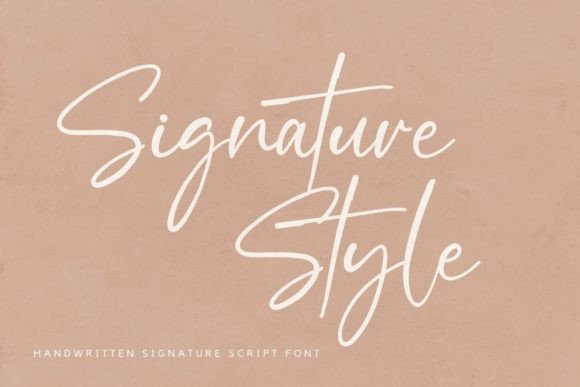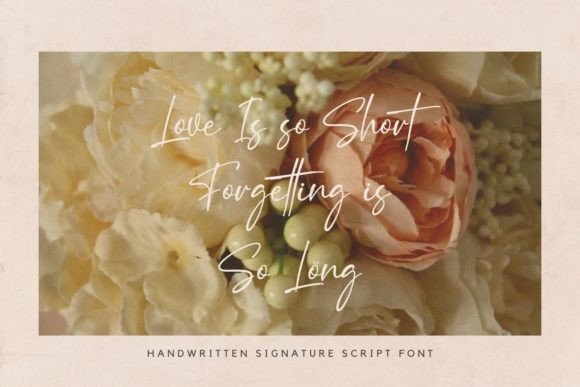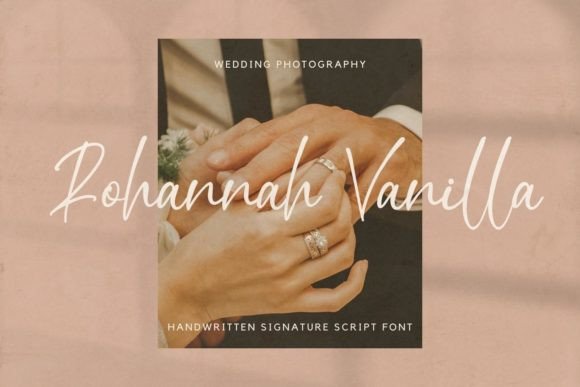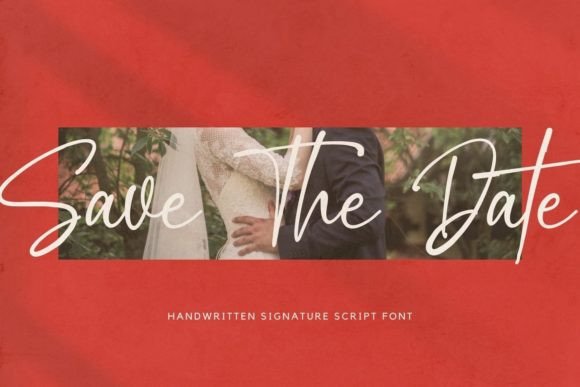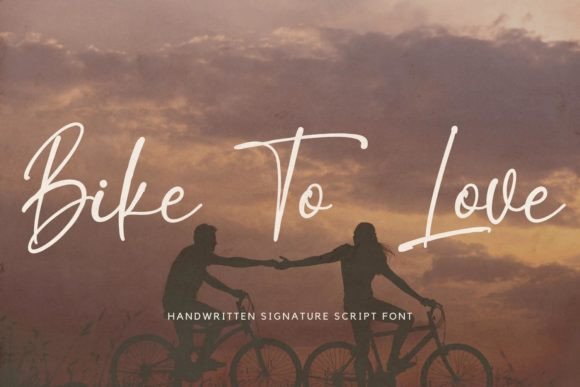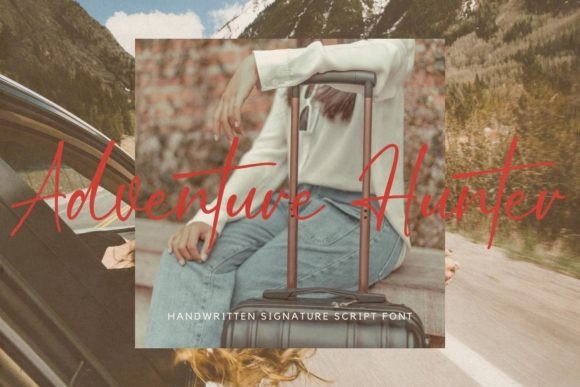
Introducing Heater Bellamore: Elevate Your Designs with Elegant Script Signature Handwriting Font
Are you looking for a font that can add a touch of elegance and sophistication to your designs? Look no further than Heater Bellamore, a stunning script signature handwriting font that is sure to elevate your projects to the next level. With its charming and versatile features, Heater Bellamore is perfect for creating personalized signatures, logos, and more.
The Beauty of Handwriting Styles
Handwriting styles have always been a popular choice for designers and crafters, as they add a personal touch to any project. Heater Bellamore is no exception, offering a beautiful and unique script signature handwriting style that is sure to make a statement. With its flowing lines and elegant curves, this font is perfect for creating designs that are both sophisticated and eye-catching.
Features of Heater Bellamore
Heater Bellamore is more than just a beautiful font – it’s also incredibly versatile. Here are just some of the features that make it a must-have for designers and crafters:
- Uppercase and Lowercase Letters: Heater Bellamore includes both uppercase and lowercase letters, giving you the flexibility to create designs that are both bold and delicate.
- Numbers and Punctuations: In addition to letters, Heater Bellamore also includes numbers and punctuations, making it easy to create complete designs that include text and numerical information.
- Multilingual Support: Heater Bellamore supports multiple languages, making it a great choice for designers and crafters who work with clients from around the world.
- Ligatures: Ligatures are special characters that combine two or more letters into a single glyph. Heater Bellamore includes ligatures, which can add an extra touch of elegance to your designs.
- PUA Encoding: PUA (Private Use Area) encoding allows you to access special characters and glyphs that are not available in standard fonts. Heater Bellamore includes PUA encoding, giving you even more flexibility and creative options.
Endless Possibilities for Your Designs
With Heater Bellamore, the possibilities for your designs are endless. Here are just a few ideas to get you started:
- Personalized Signatures: Create beautiful, one-of-a-kind signatures for your clients or personal use.
- Logos and Branding: Use Heater Bellamore to create elegant logos and branding materials that will set your business apart.
- Stationery and Invitations: Add a touch of elegance to your stationery and invitations with Heater Bellamore.
- Digital Art and Graphics: Use Heater Bellamore to add a personal touch to your digital art and graphics.
Why Choose Heater Bellamore?
There are many script signature handwriting fonts available, but Heater Bellamore stands out from the crowd. Here are just a few reasons why:
- Unique and Elegant Design: Heater Bellamore has a unique and elegant design that is sure to make a statement.
- Versatile Features: With its versatile features, including uppercase and lowercase letters, numbers, punctuations, multilingual support, ligatures, and PUA encoding, Heater Bellamore offers endless possibilities for your designs.
If you’re looking for a font that can add a touch of elegance and sophistication to your designs, look no further than Heater Bellamore. With its stunning script signature handwriting style and versatile features, Heater Bellamore is perfect for creating personalized signatures, logos, and more. Whether you’re a designer, crafter, or simply someone who loves beautiful typography, Heater Bellamore is a must-have font that is sure to elevate your projects to the next level.